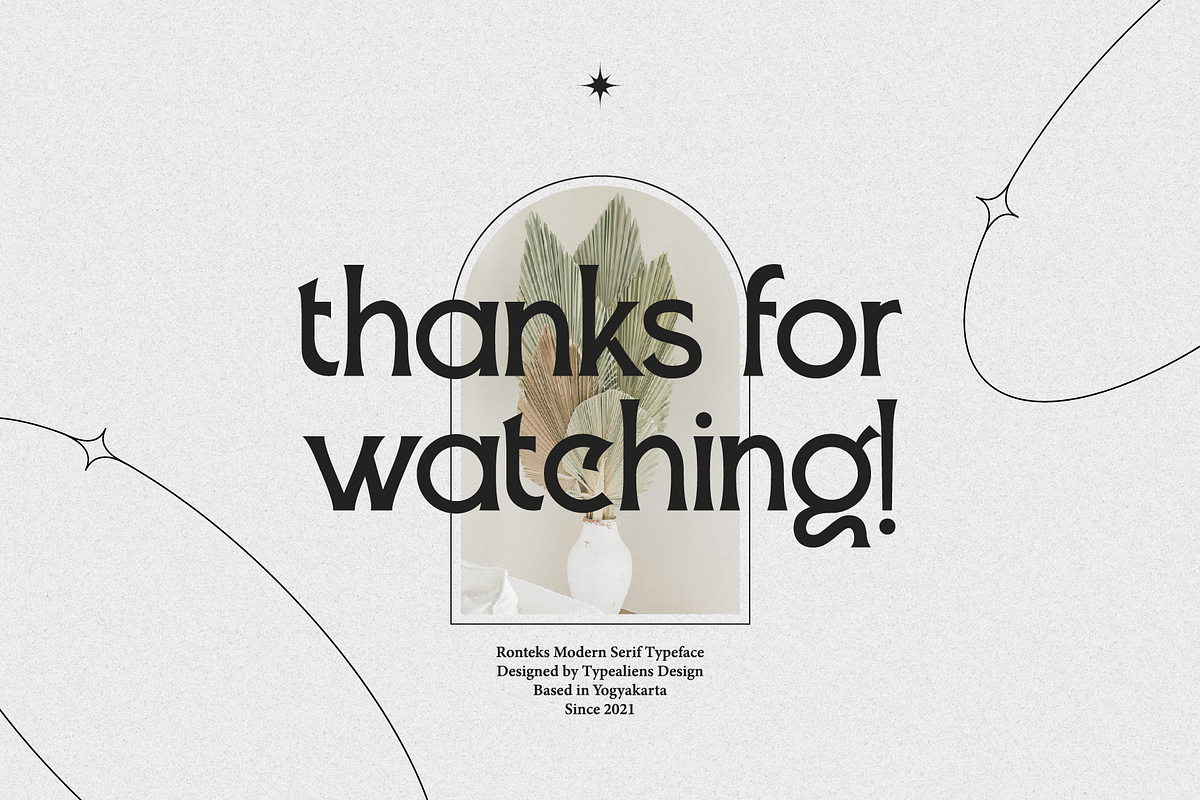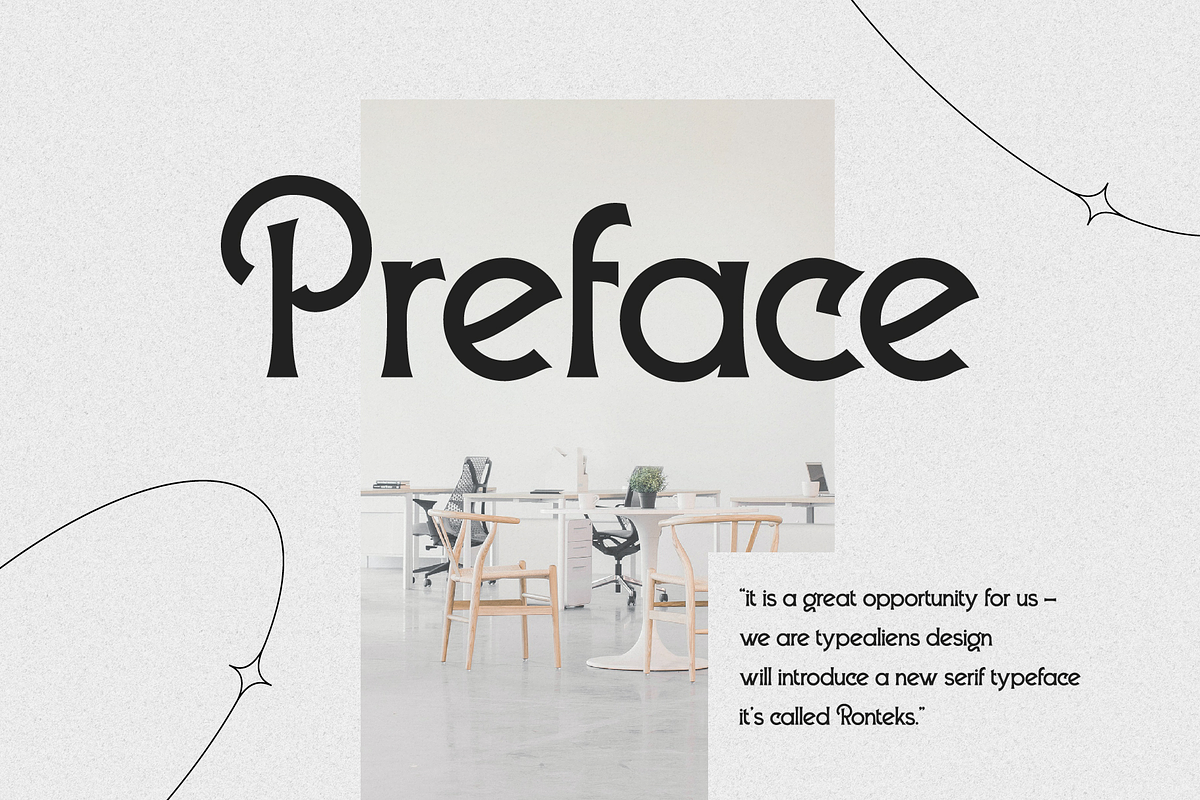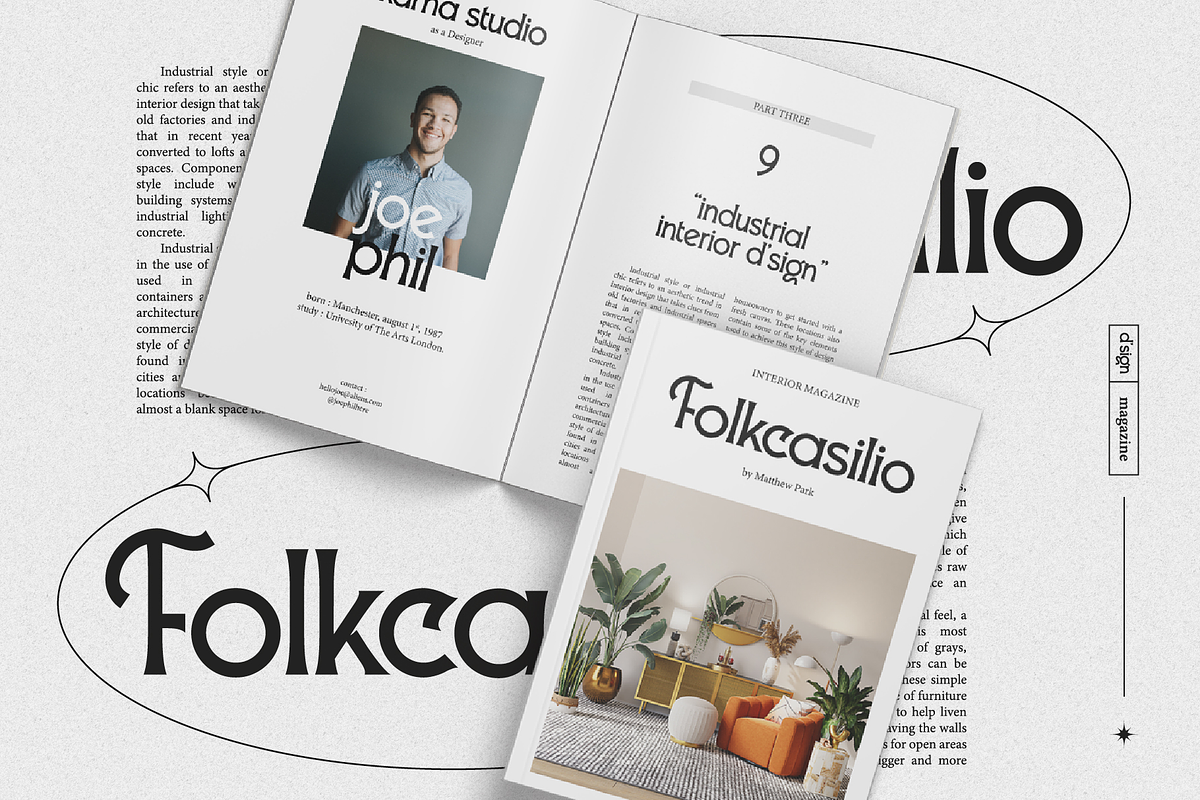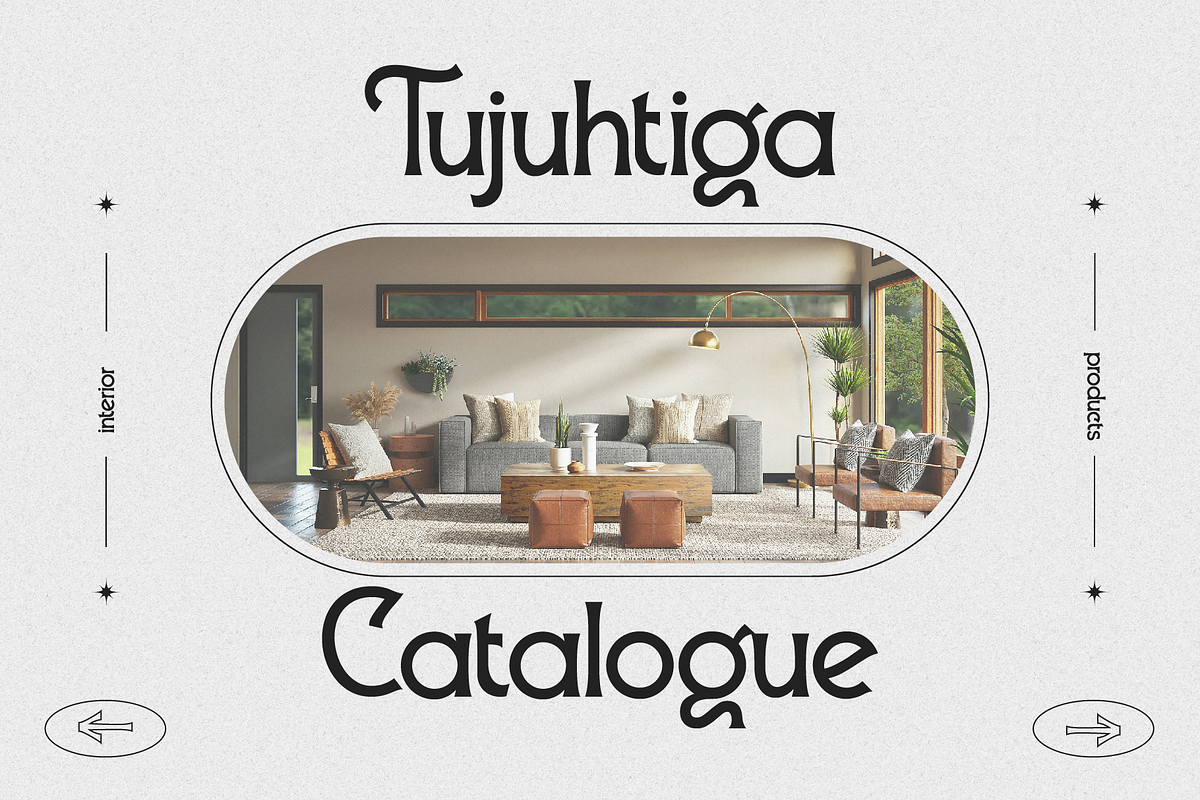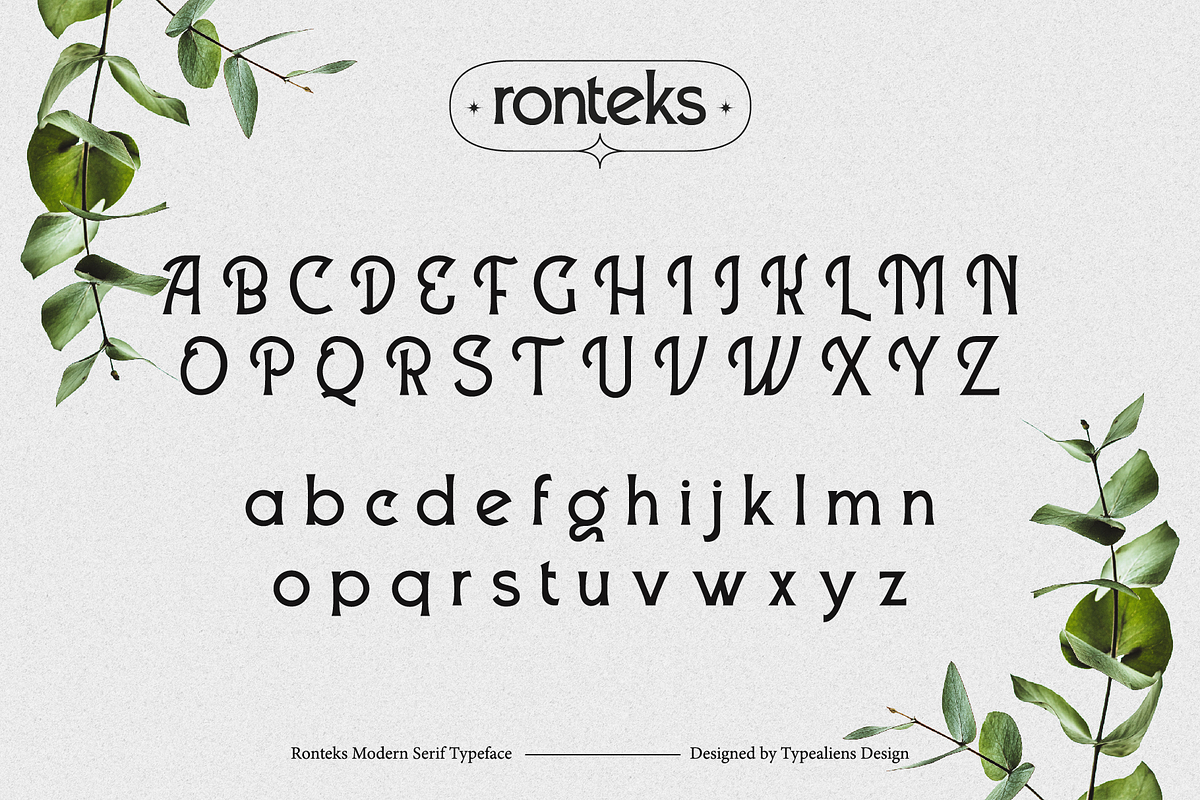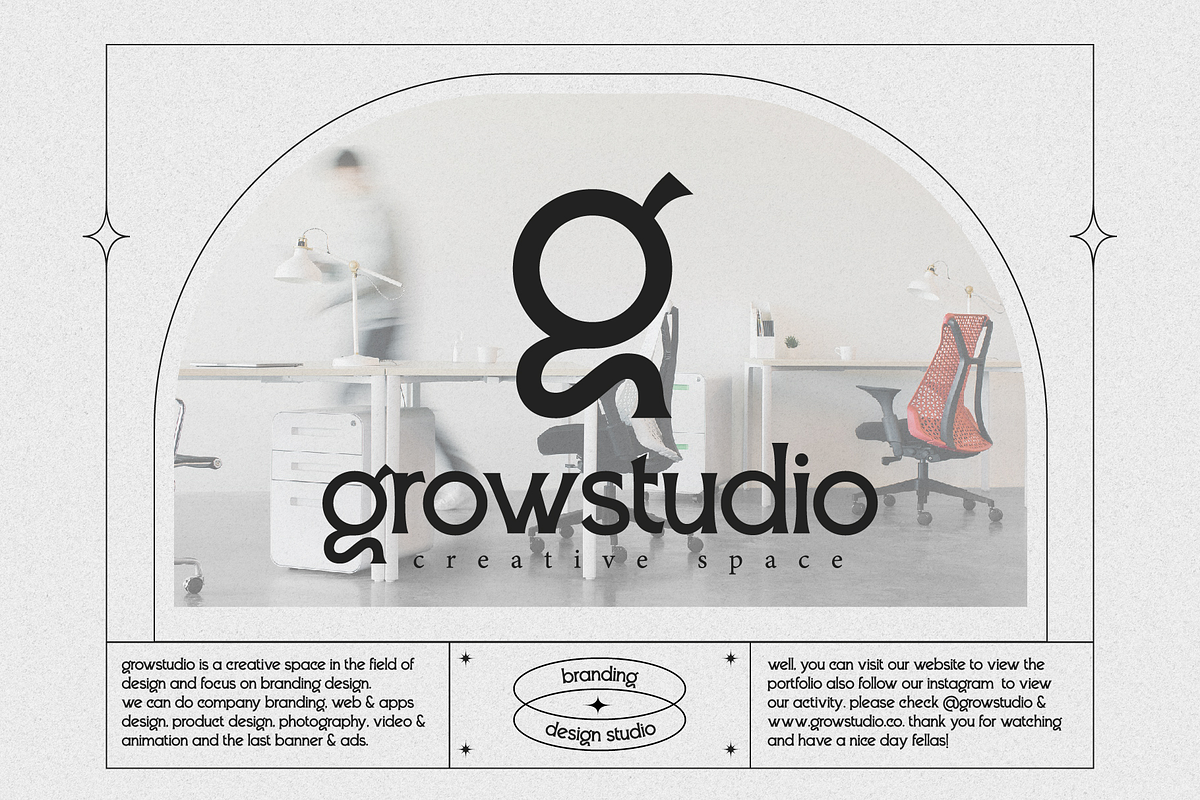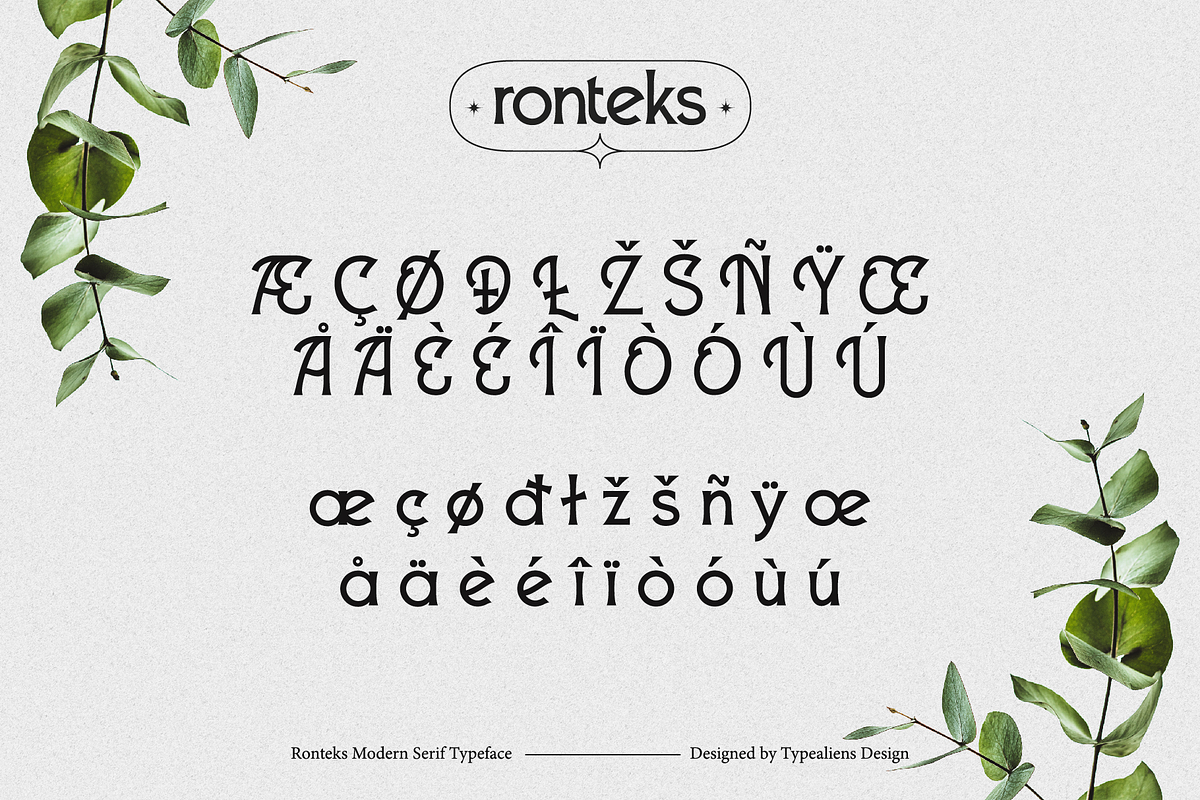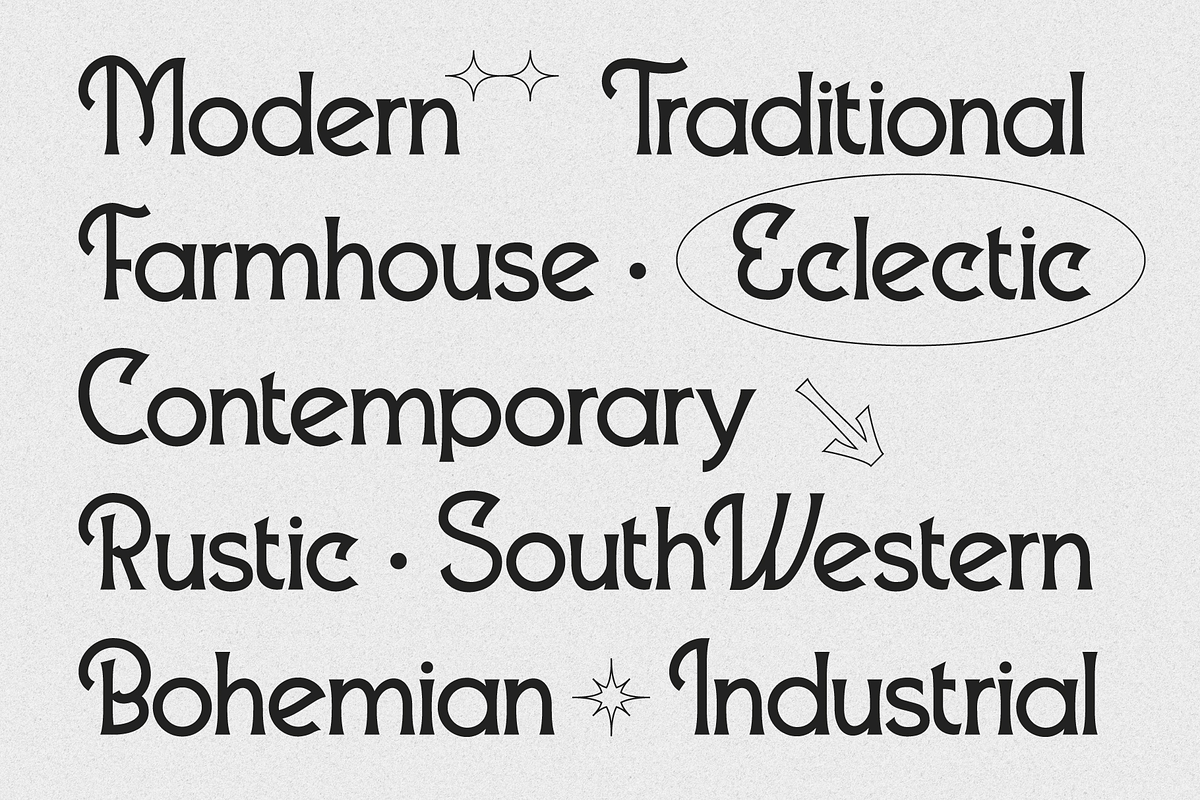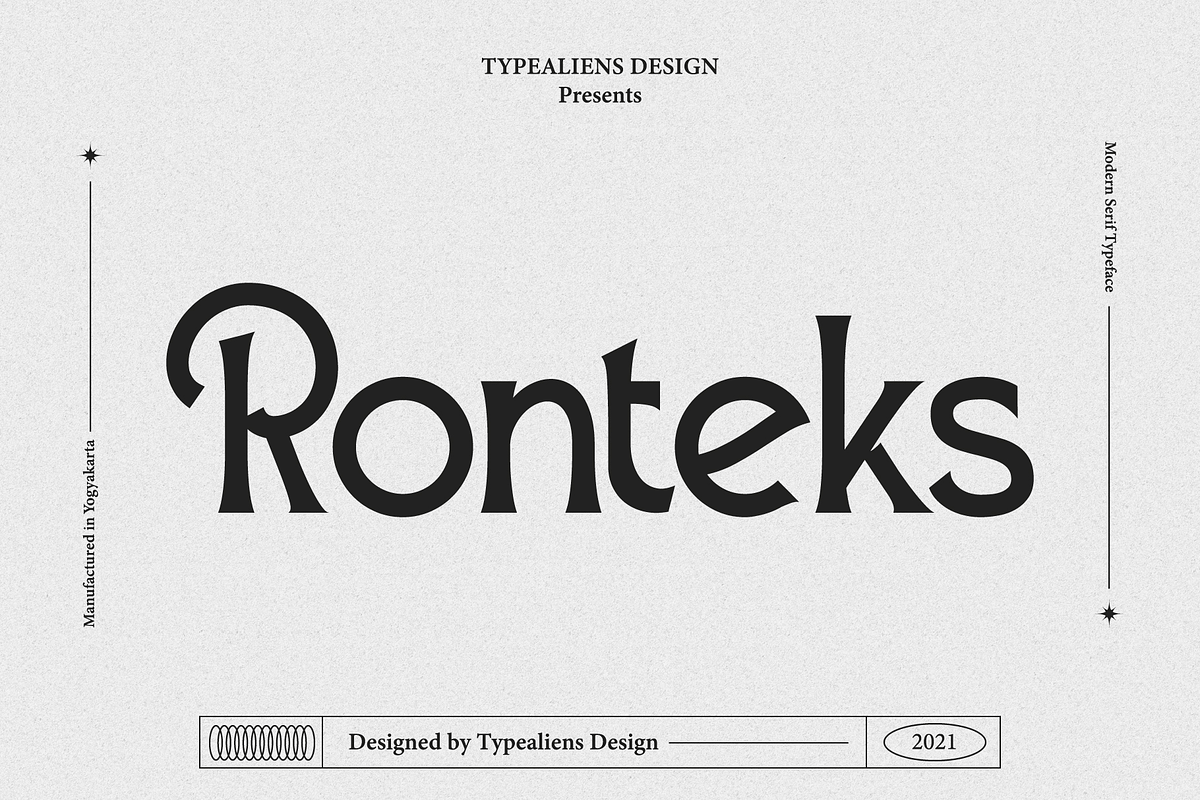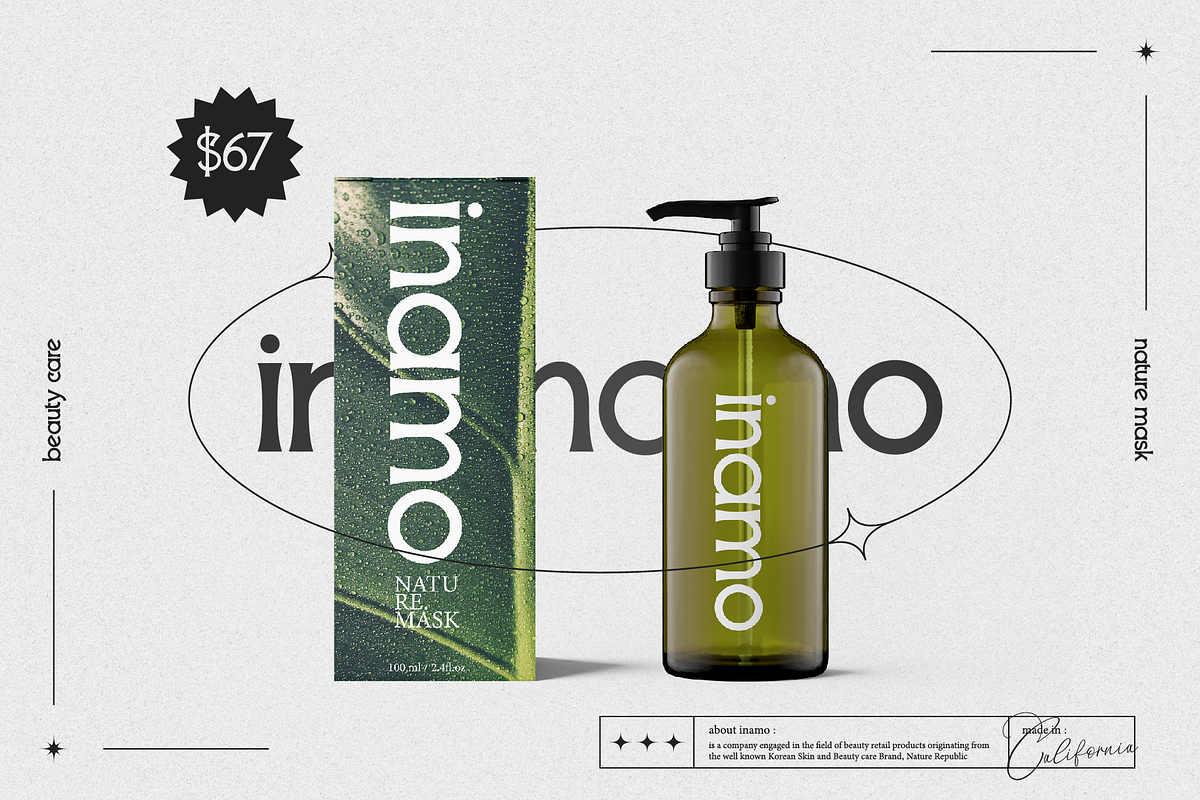
Ronteks
RONTEKS
Ronteks is a semi-serif font, with a slightly coy hook that makes it less clunky and a little more flexible for modern designs, but would be good for classic-style designs too. This clean font, of course, will support your design in terms of branding and for your business social media design.